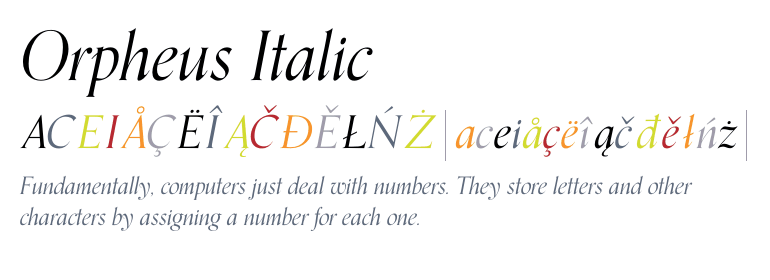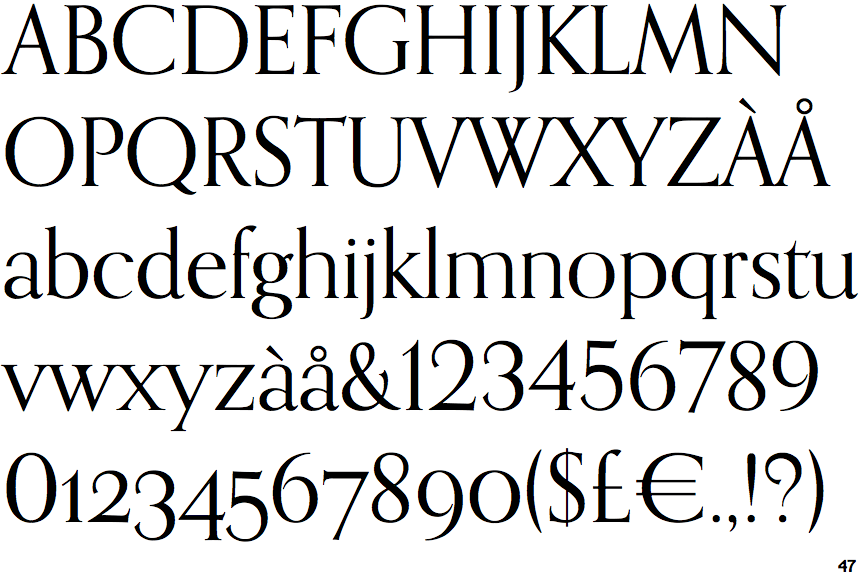
Orpheus Pro Regular Font - What Font Is
Orpheus pro font alternative. Adobe fonts is the easiest way to bring great type into your workflow, wherever you are. These are great tips and great fonts. Browse our collection of fonts similar to orpheus pro:
Niveau grotesk comes in 6 weights, all with italics. In 2011, canada type released a digital revision of these two typefaces, combining them into one family with the name orpheus pro. There is no point trying to find a free download of orpheus so please don't waste your time looking.
Orpheus is a serif typeface originally designed by walter tiemann in 1928. With the exception of some of the spacing, they're practically the same, thanks! Niveau grotesk is also a great alternative to proxima nova, one of the most popular fonts.
Making the web more beautiful, fast, and open through great typography Tiemann designed a separate italic version of orpheus under the name euphorion in 1936. Originally, orpheus was designed in the late 1920s by walter tiemann.
The family is available in both text and display versions, with each including five weights with corresponding italics. Similar free fonts and alternative for orpheus pro bold. Its italic version was created almost a decade later under the name euphorion.
The design was inspired by display types popular during the 1970s such as trooper roman, times modern and perpetua super (which it was named after). That said, always carefully read. They are both offered in a single adobe fonts free download by canada type under the orpheus pro name.
Explore orpheus designed by kevin king, patrick griffin at adobe fonts. Thanks for helping me out, i'll go with crimson text on this project. A serif typeface with 4 styles, available from adobe fonts for sync and web use.
Is orpheus a free font? Similar free fonts and alternative for orpheus pro bold. The typeface features a beautiful, flowing italic design that takes on a calligraphic feel, especially in the huge collection of ornate ligatures, alternate.
The fonts in the “40 best free fonts that aren’t on google fonts” section are all free for both personal and commercial use as well. No,orpheus is not free to download. Orpheus pro comes in 3 weights, but the italics is only in the 400 weight.